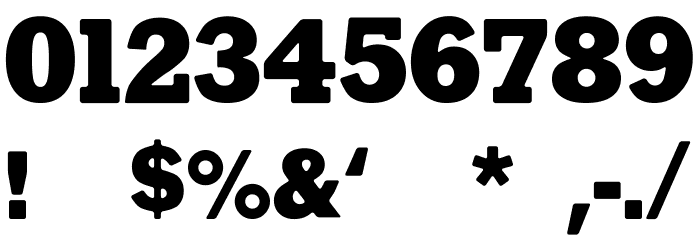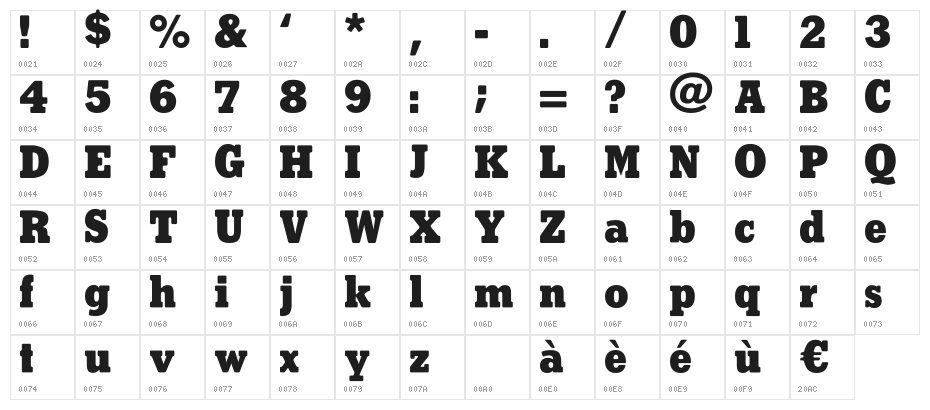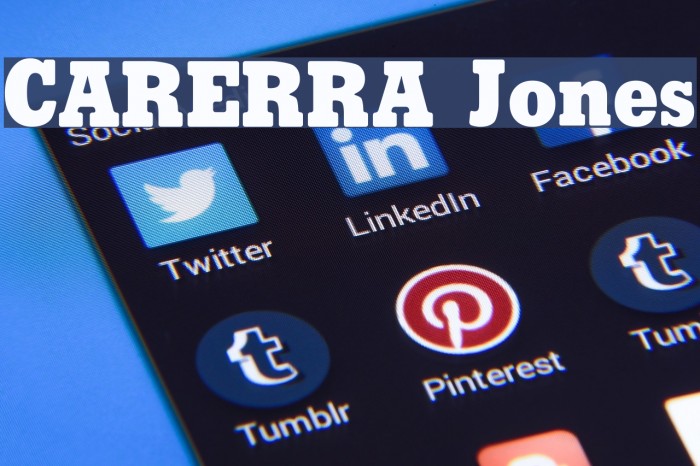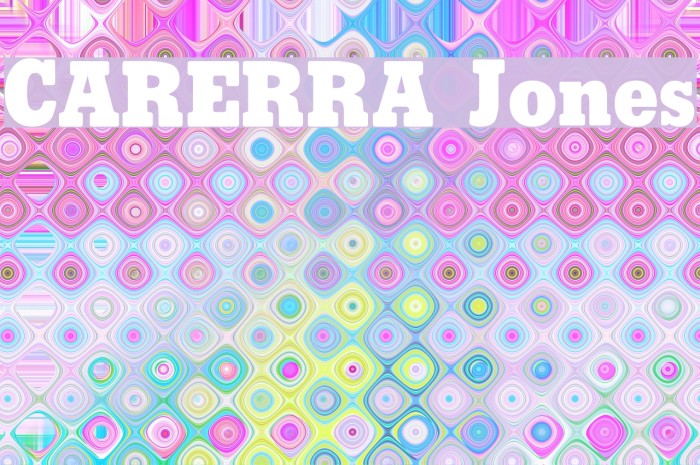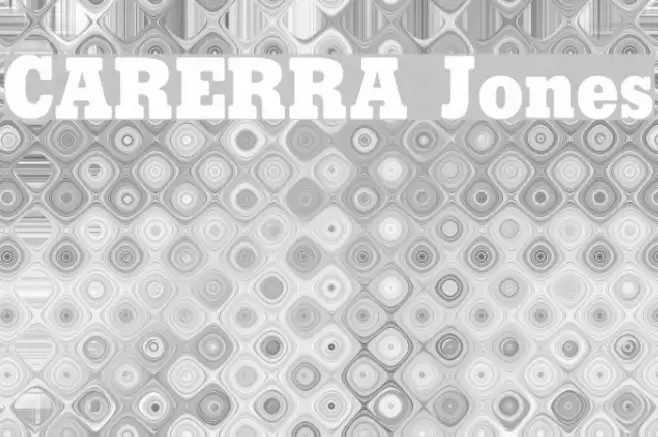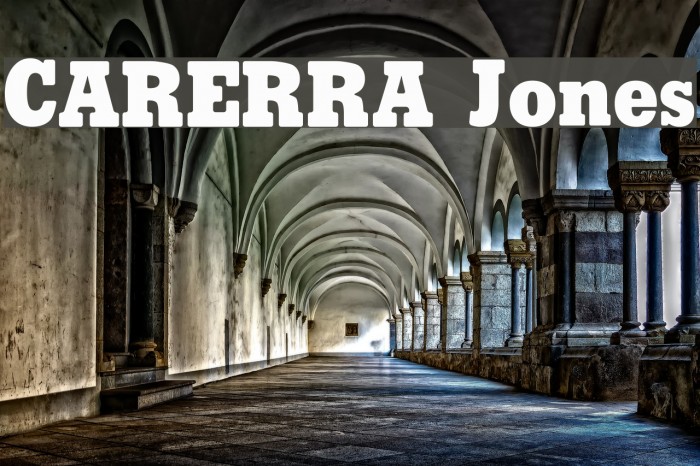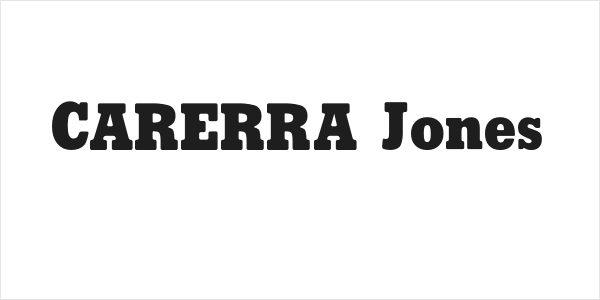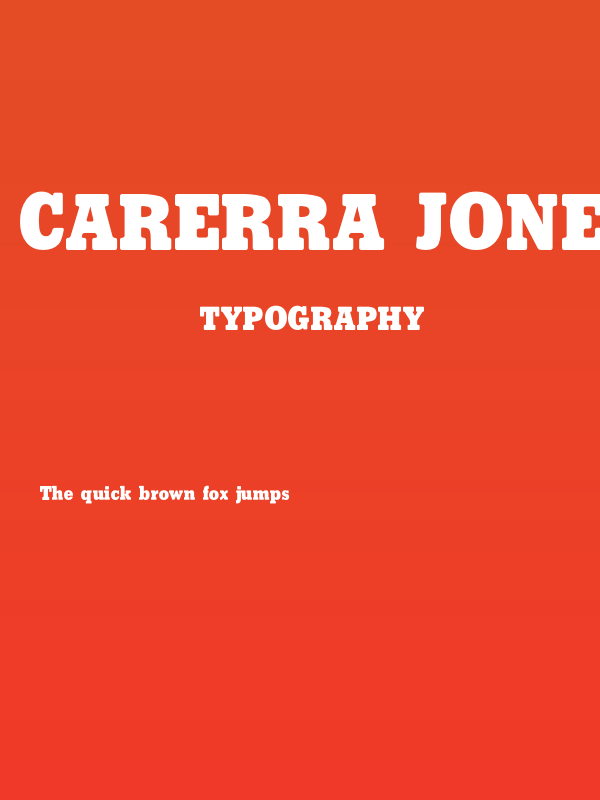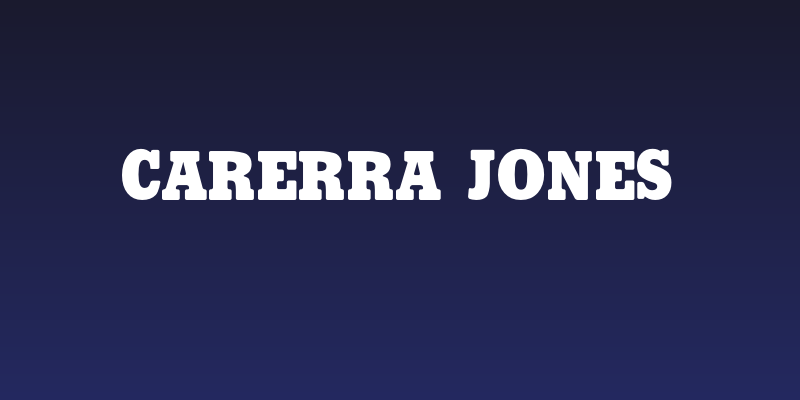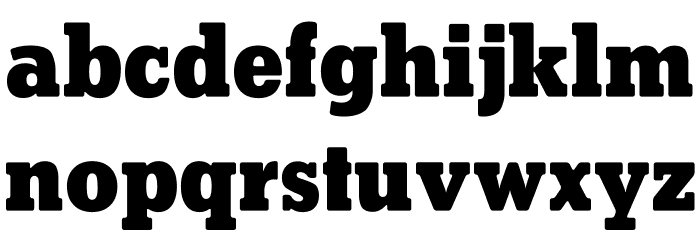
CARERRA Jones Font
CARERRA Jones Description
This font exhibits a bold and robust character with thick, consistent strokes that convey strength and impact. The letters are well-defined with a slight curvature that adds a touch of softness to the otherwise strong appearance. The uppercase characters are particularly striking, with a commanding presence that makes them ideal for attention-grabbing headlines. The lowercase letters maintain the same boldness, ensuring readability and consistency across different text sizes. The numerals are equally bold, making them suitable for use in contexts where clarity and emphasis are required. The special characters are designed to match the overall style, ensuring a cohesive look throughout. This font's strong and confident style makes it perfect for projects that require a bold statement.
| Proposed Projects | Suitable for branding, advertising, posters, and any project requiring a strong visual impact. |